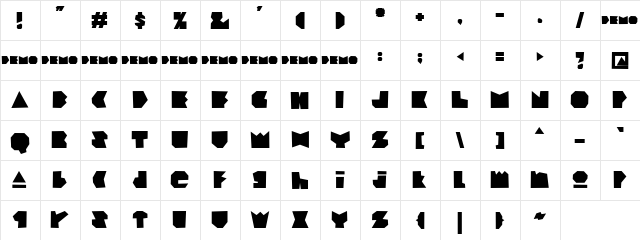
BadBoyInc demo Regular Font Preview
BadBoyInc demo Regular
BadBoyInc demo Regular Font Details
| Foundry | Sahirul Iman, Semarang, alexatype |
| Designer | Sahirul Iman, Semarang, alexatype |
Design Context for BadBoyInc demo Typeface
BadBoyInc demo is a composed and adaptable typeface that performs quietly and consistently across a wide range of design contexts.